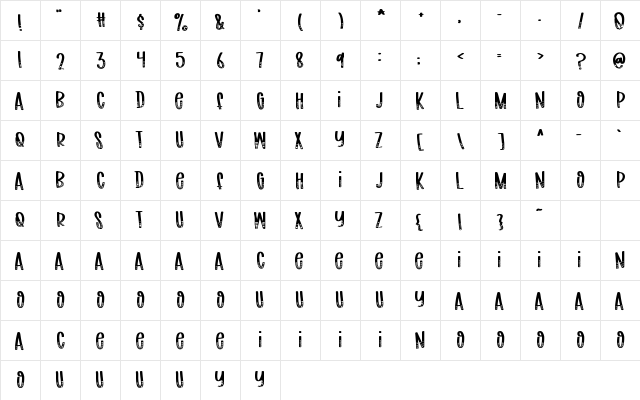
FB-Leonardo Regular
Design Context for FB-Leonardo Typeface
FB-Leonardo is a composed and adaptable typeface that performs quietly and consistently across a wide range of design contexts.